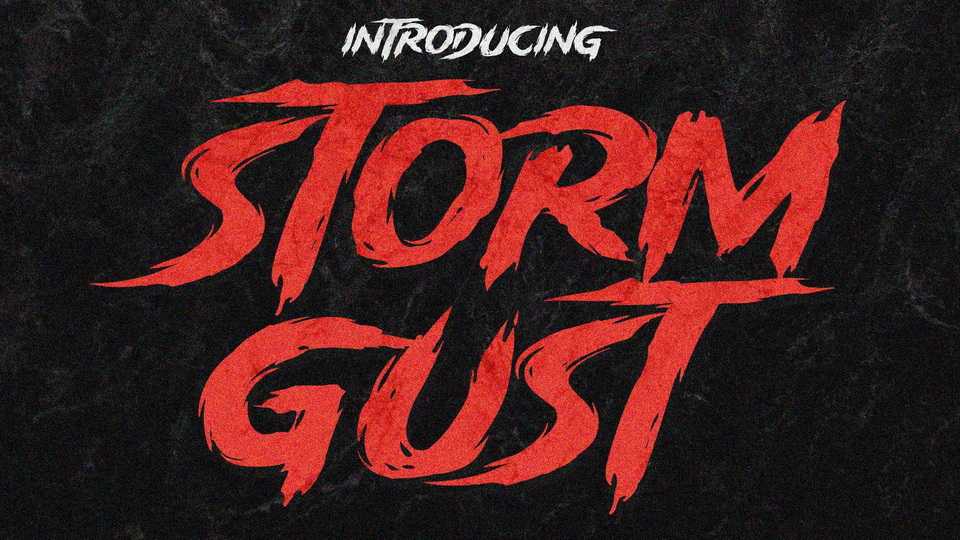
Download Storm Gust font, a horror typeface with rough and bold letters. Storm Gust is great for logos, branding, print projects and any attention drawing headline.